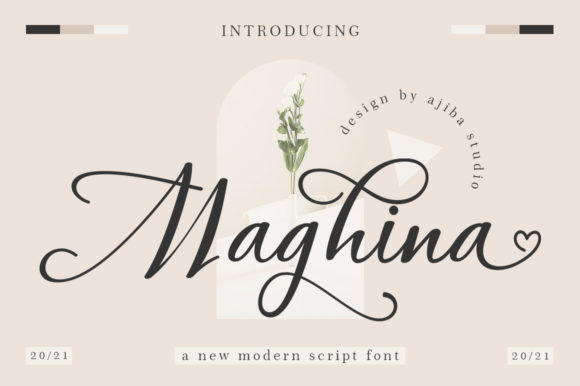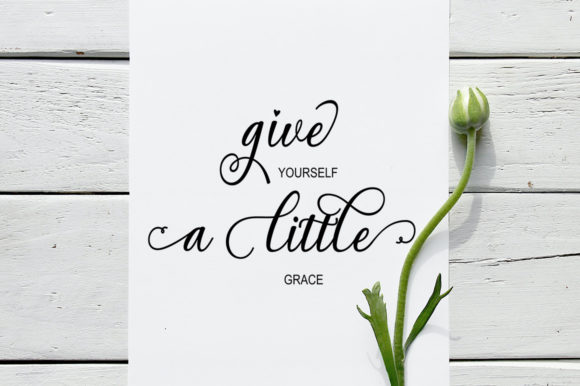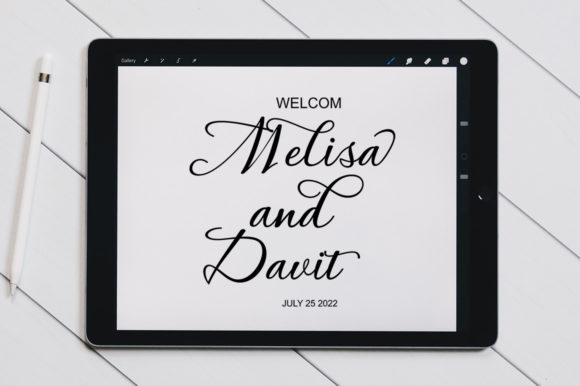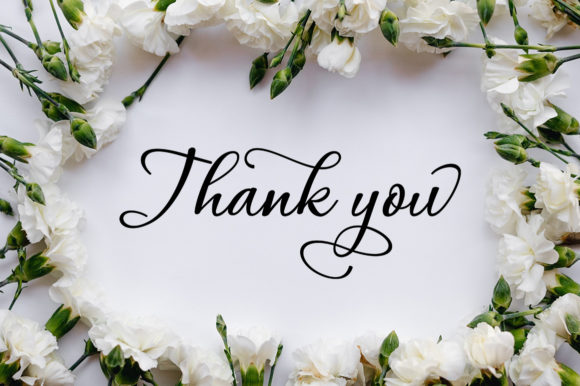
About Maghina Sript Font
Maghina Sript is a romantic and sweet calligraphy typeface with characters that dance along the baseline. It will add a luxury spark to any design project that you wish to create! This font is PUA encoded which means you can access all of the amazing glyphs and ligatures with ease!